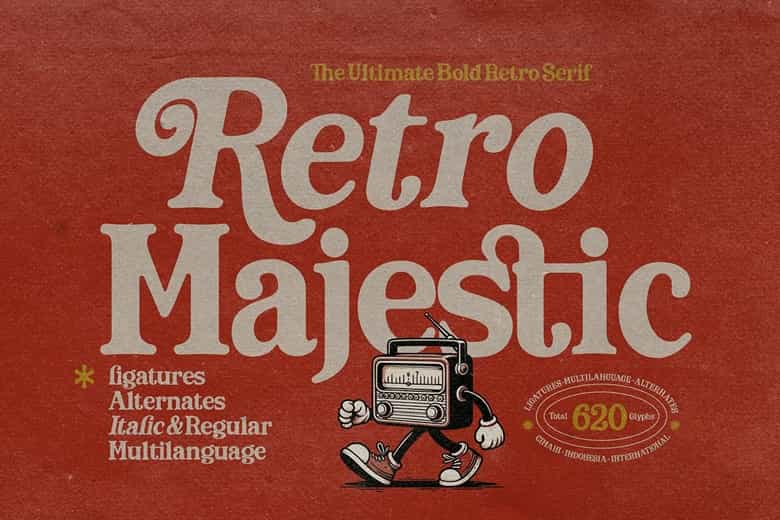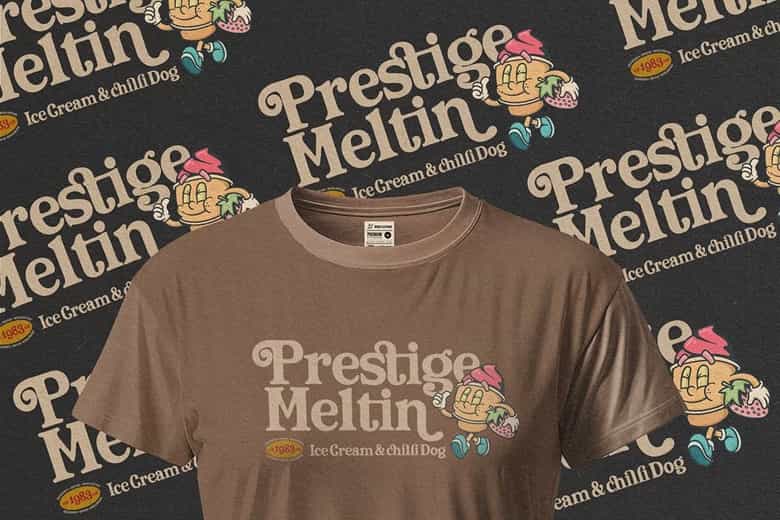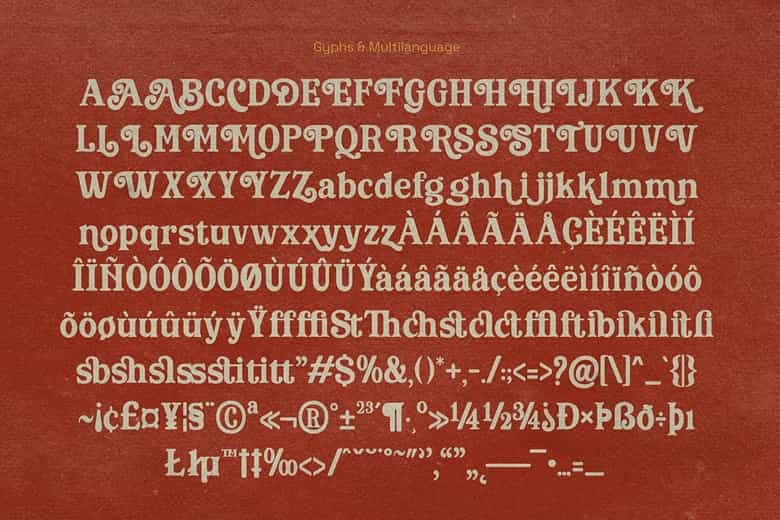
Retro Majestic is an attractive serif typeface with retro influences, mainly intended for advertising, large lettering, and unchanging brand identity. Featuring more than thirty style, thick and elegant lines together with nice curves, this font offers a perfect combination of mid-century look and modern flexibility as it is suitable for posters, packaging, logos, and designs in any magazine or newspaper.